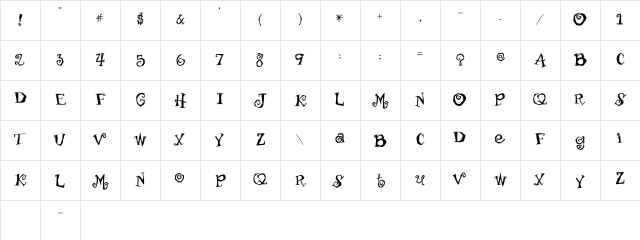
2Peas Haunted House 2Peas Haunted House Free Font
2Peas Haunted House 2Peas Haunted House
Style: 2Peas Haunted House
Design Context for 2Peas Haunted House
2Peas Haunted House is a composed and adaptable typeface that performs quietly and consistently across a wide range of design contexts.